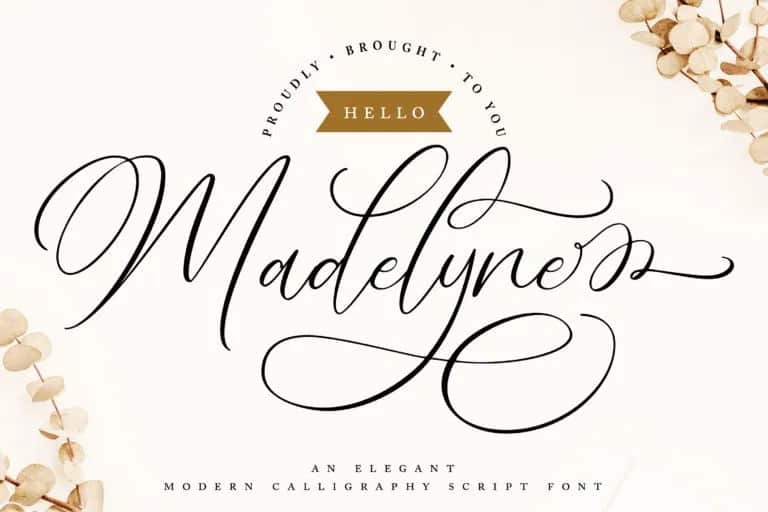
Hello Madelyne Calligraphy Font
Introducing Hello Madelyne Calligraphy Font. This font was designed by handwriting, and it has a modern and unique forms of calligraphy, the writing style is very natural. This font is designed and shared by Type Factory. It’s a Modern Calligraphy Script typeface, perfectly suitable for creating quotes, Wedding Invitation, Beauty design such as logos, quote, and magazine and more.